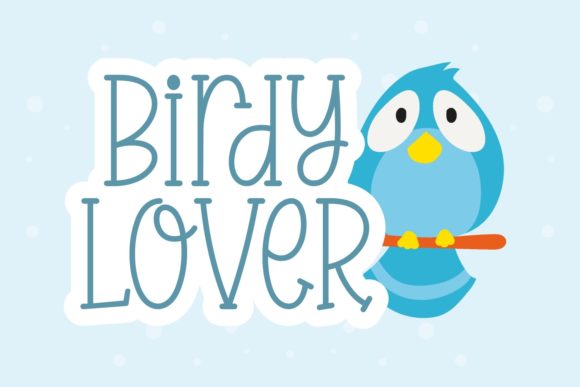
Tweety Birds Font
Tweety Birds is a cute, playful and cheery serif font. It is thin yet impactful, and it will undoubtedly make your designs look brighter and jollier.